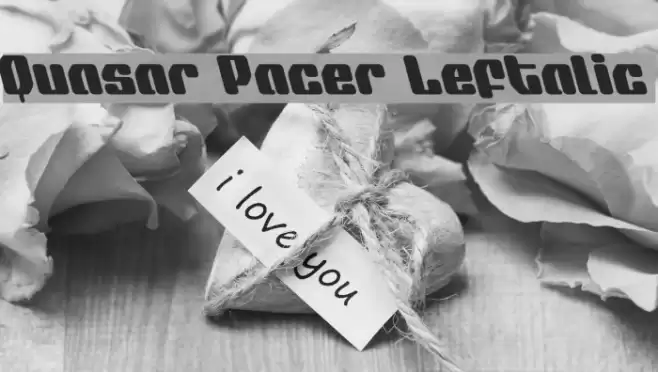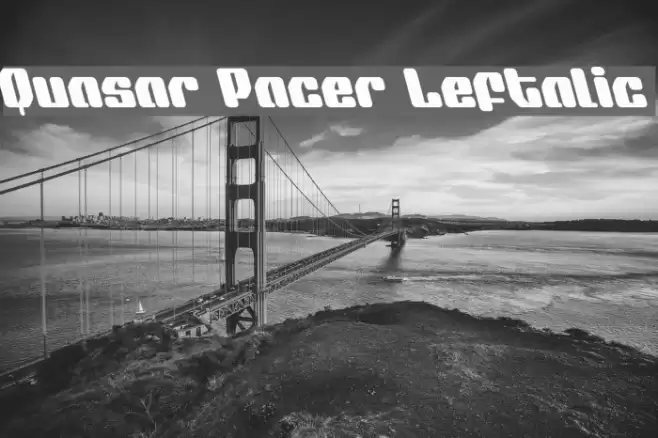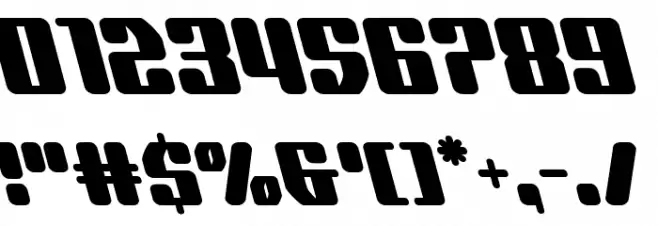
Quasar Pacer Leftalic Font
Quasar Pacer Leftalic Description
This font features a bold and dynamic style with a strong presence, characterized by its thick, block-like letterforms. The edges are slightly rounded, giving it a modern yet approachable feel. The uppercase and lowercase letters maintain a consistent weight, providing a cohesive look across all characters. The numerals and special characters are designed to match the boldness of the alphabet, ensuring uniformity throughout. This font's unique style makes it stand out, suitable for projects that require a strong visual impact.
A bold, dynamic font with thick, block-like letterforms and slightly rounded edges from Uncategorized fonts.
- Proposed Projects: Ideal for branding, poster design, headlines, and any project requiring a strong visual impact.